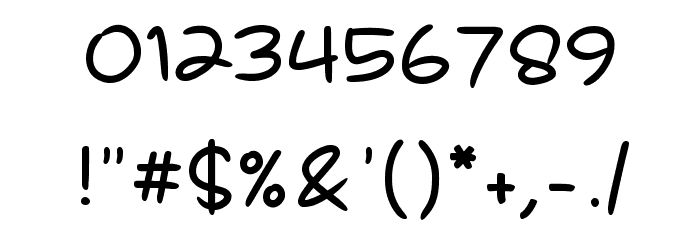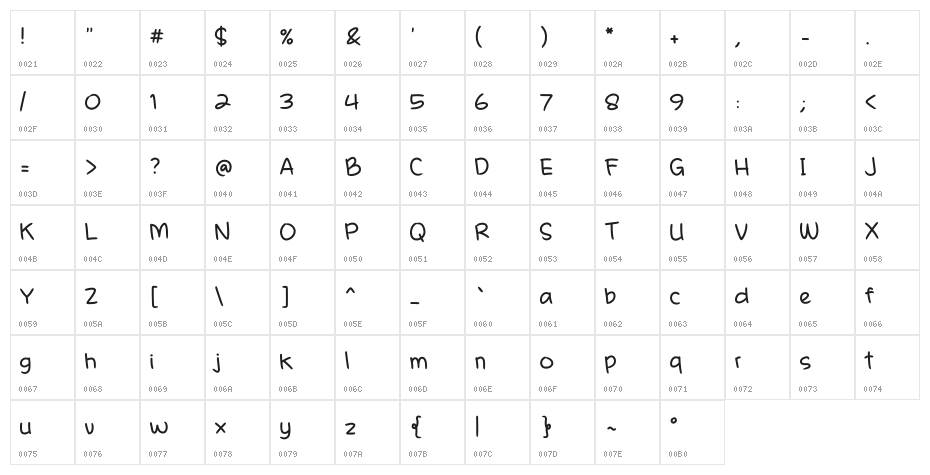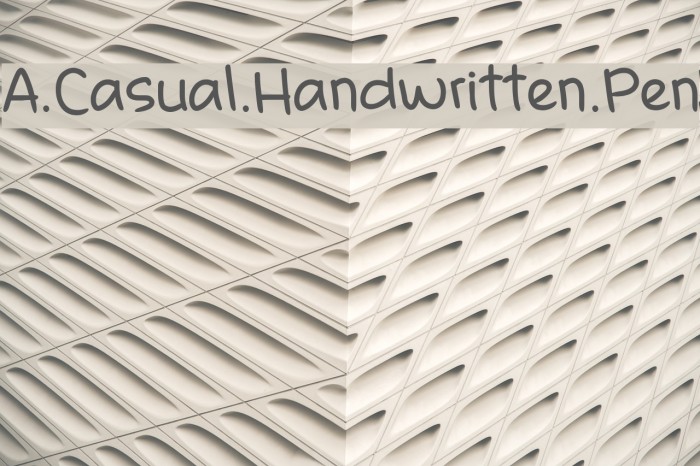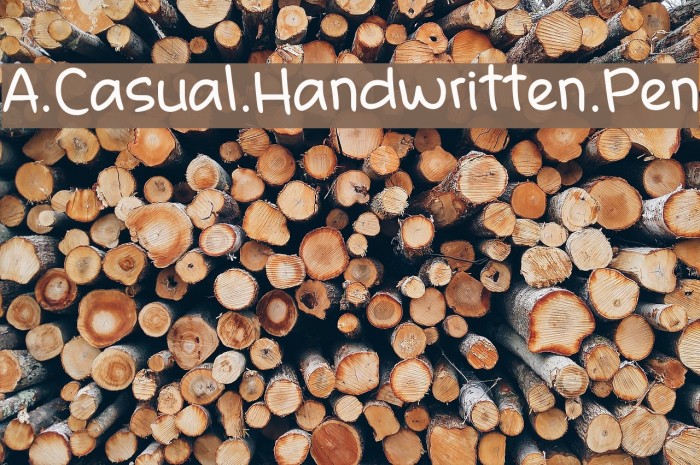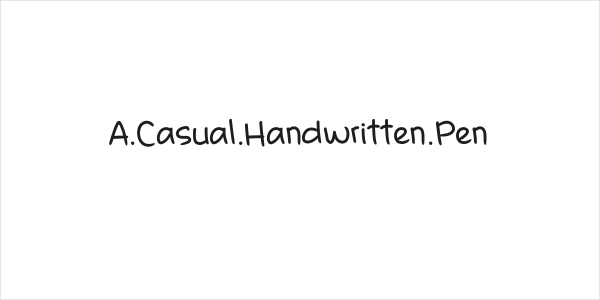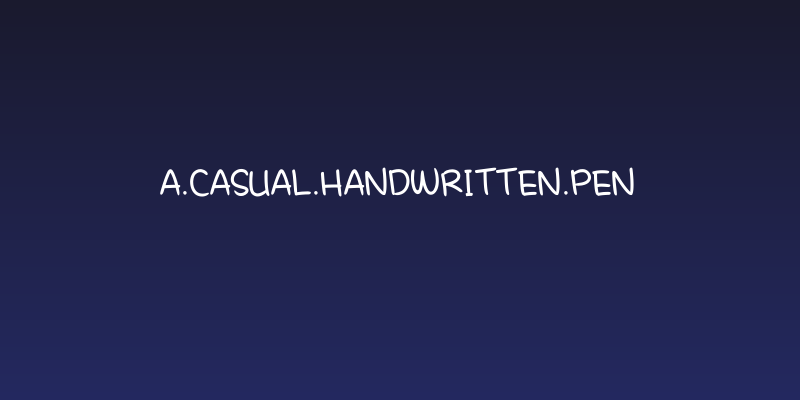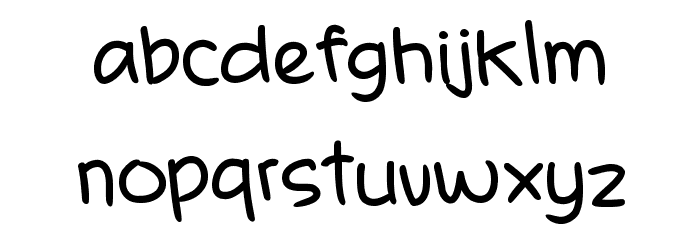
A.Casual.Handwritten.Pen Font
A.Casual.Handwritten.Pen Description
This font exudes a casual, handwritten style that mimics the fluidity and spontaneity of writing with a pen. The characters are rounded and slightly irregular, giving them a friendly and approachable appearance. The uppercase and lowercase letters maintain a consistent style, with smooth curves and a playful demeanor. The numerals and special characters follow the same aesthetic, ensuring uniformity across all text. This font is perfect for projects that require a personal touch, such as invitations, greeting cards, or informal branding.
| Use Case | Headlines, Informal text, Personal projects |
| Proposed Projects | Ideal for invitations, greeting cards, personal branding, and informal communications. |